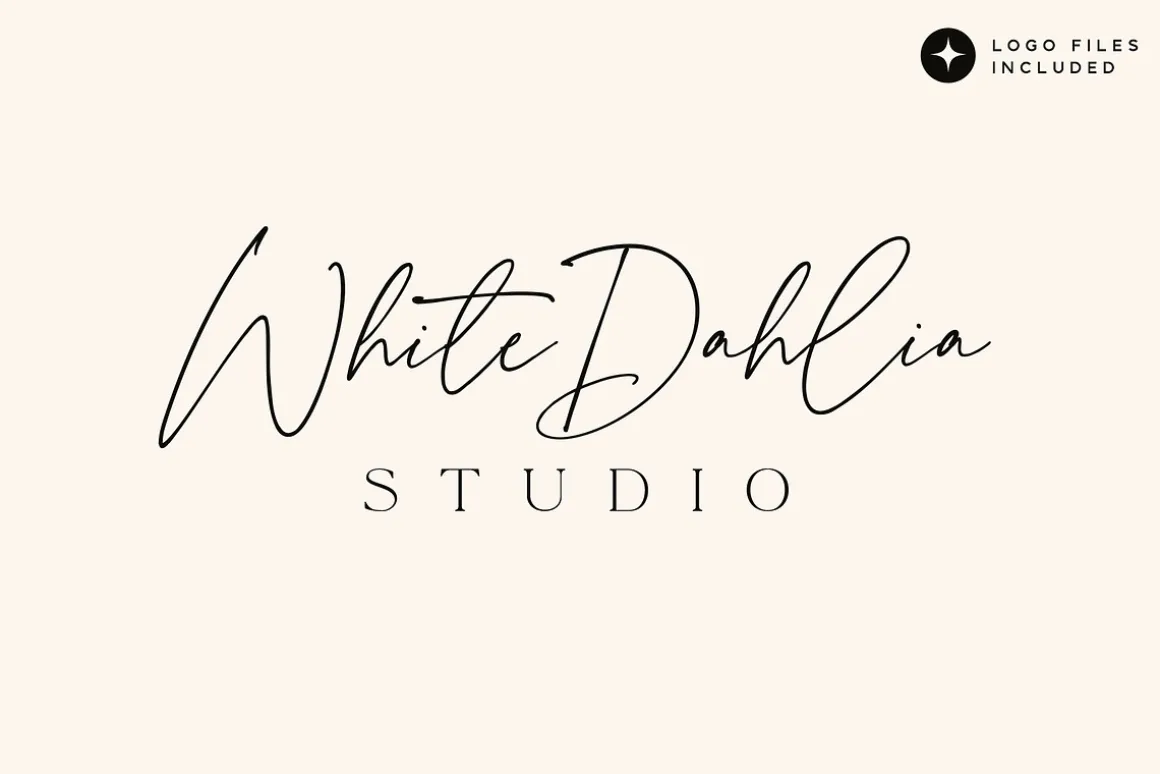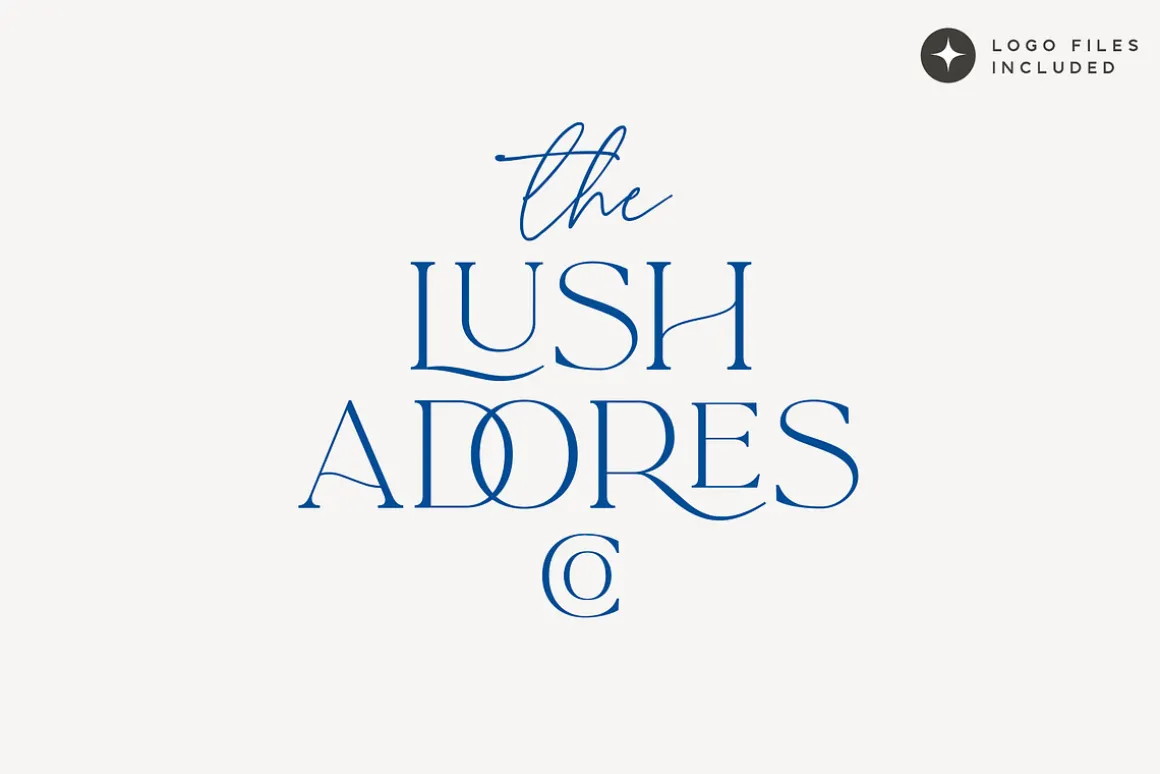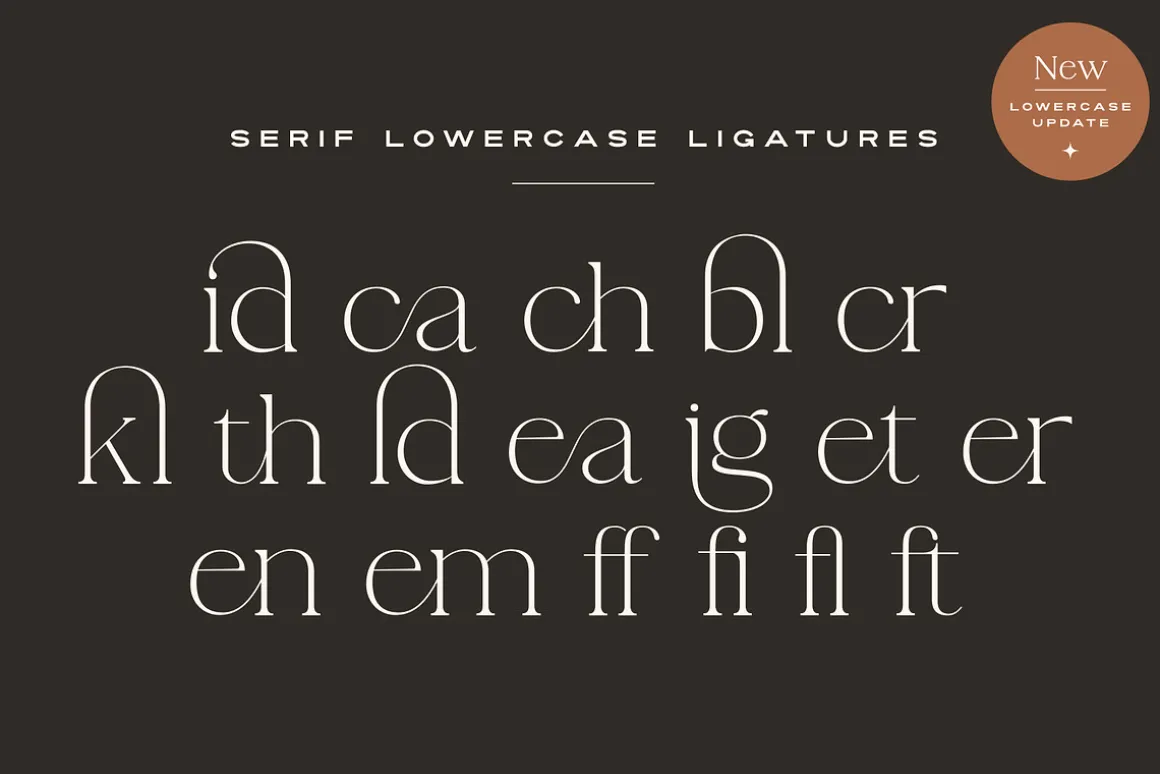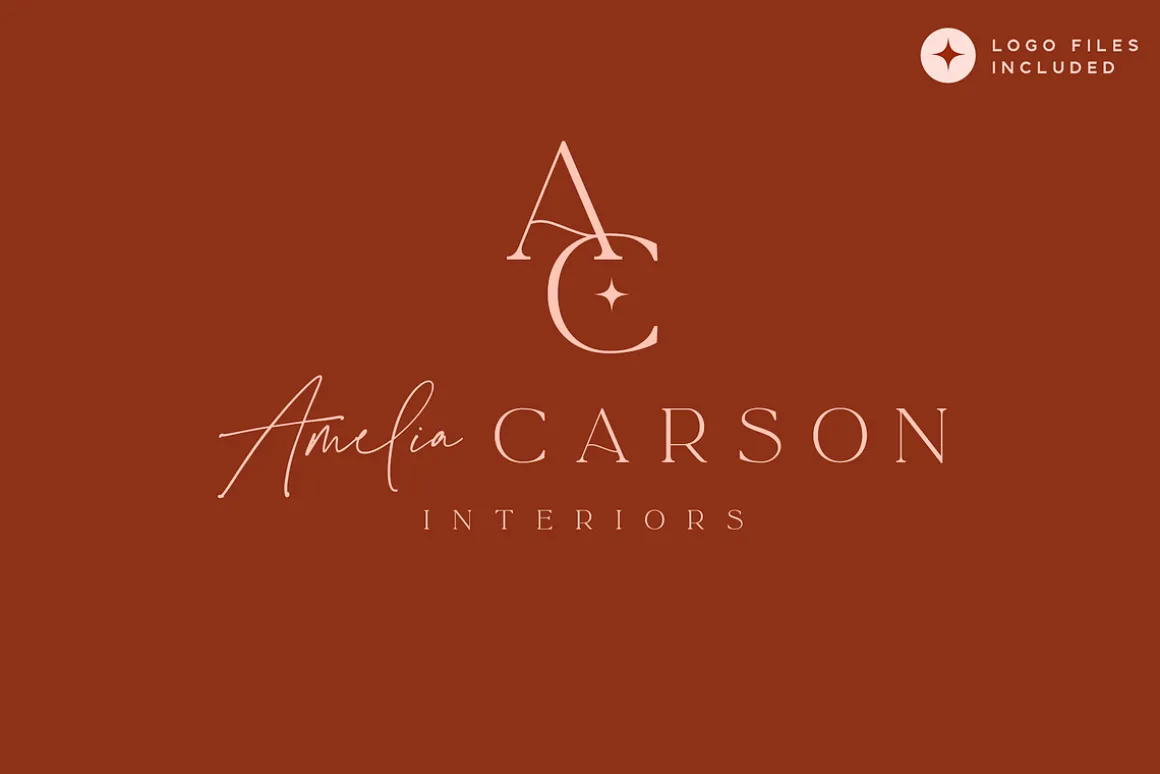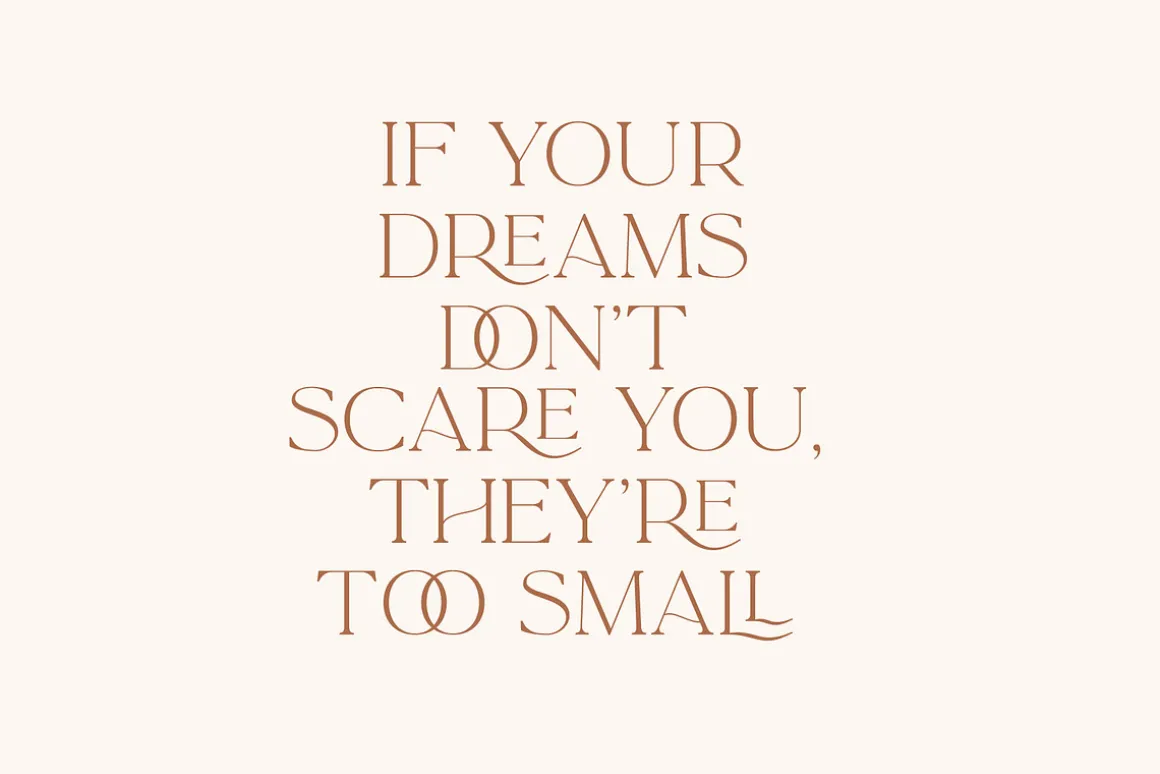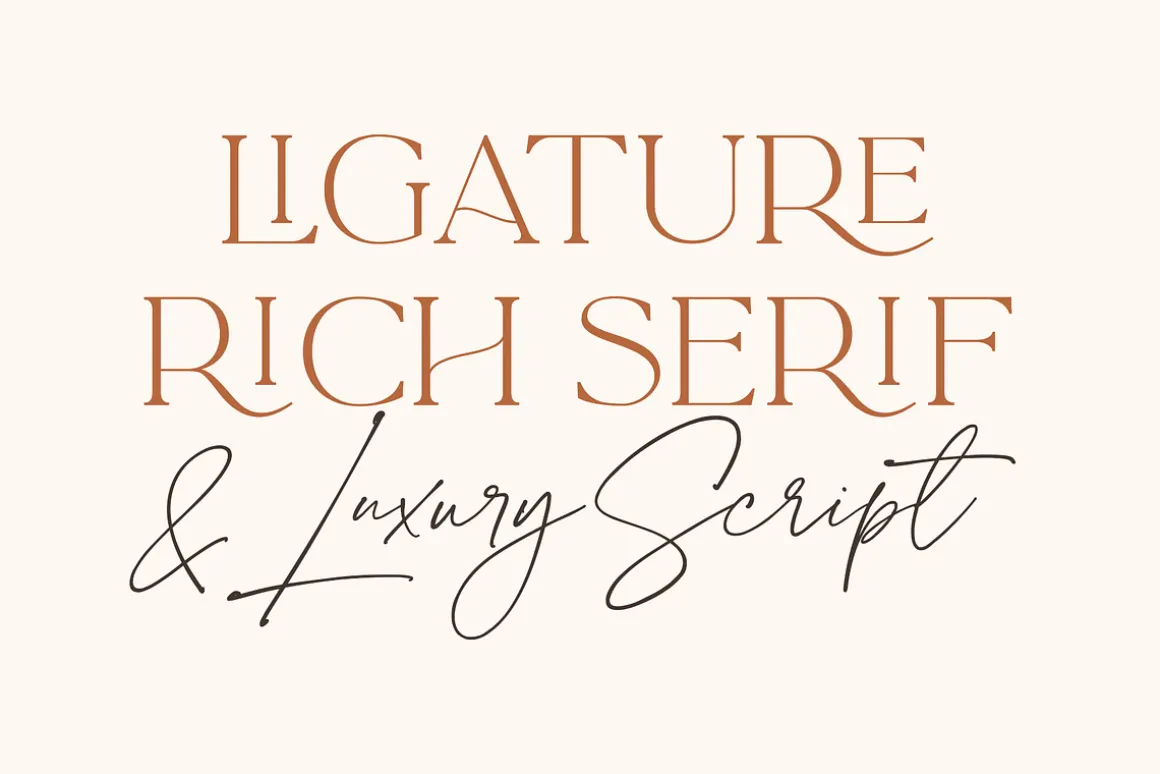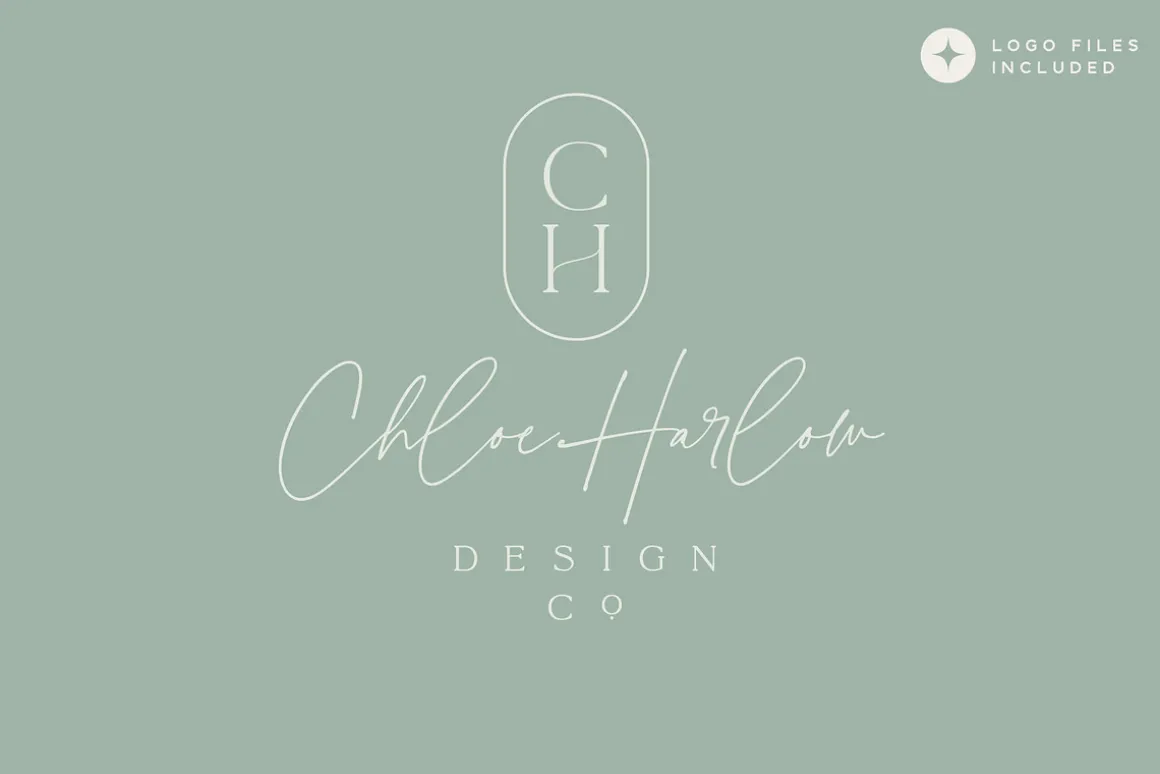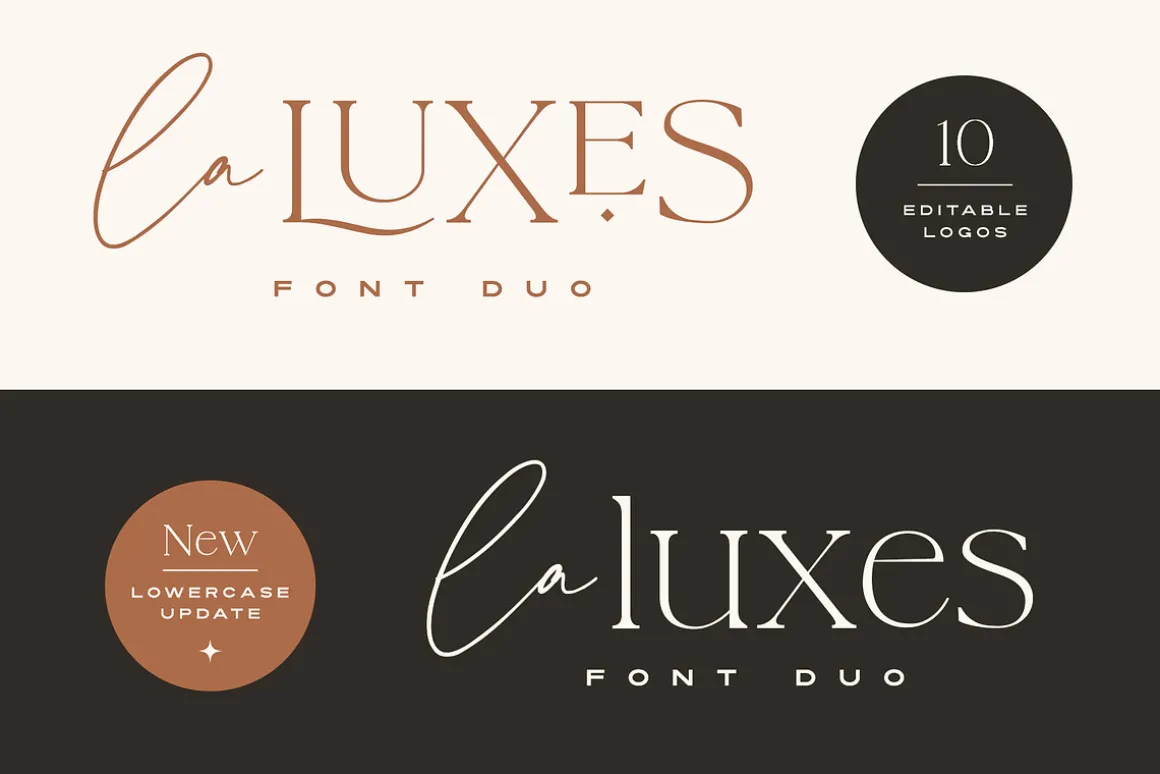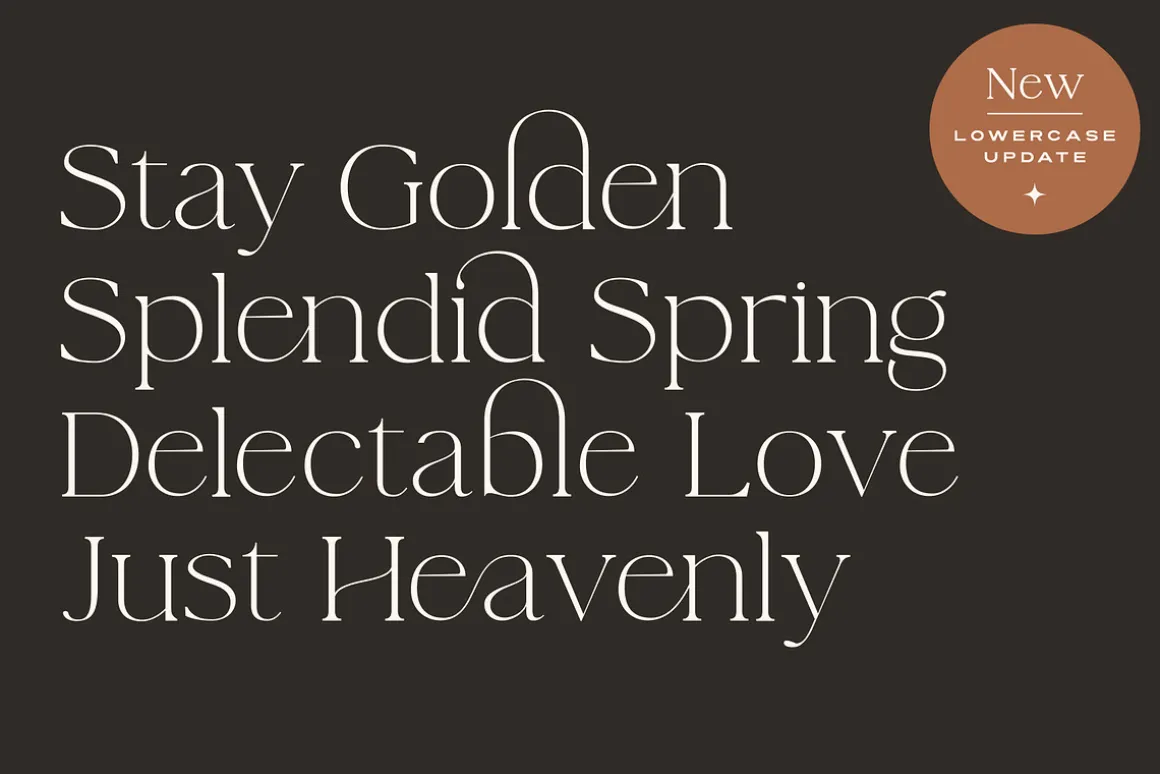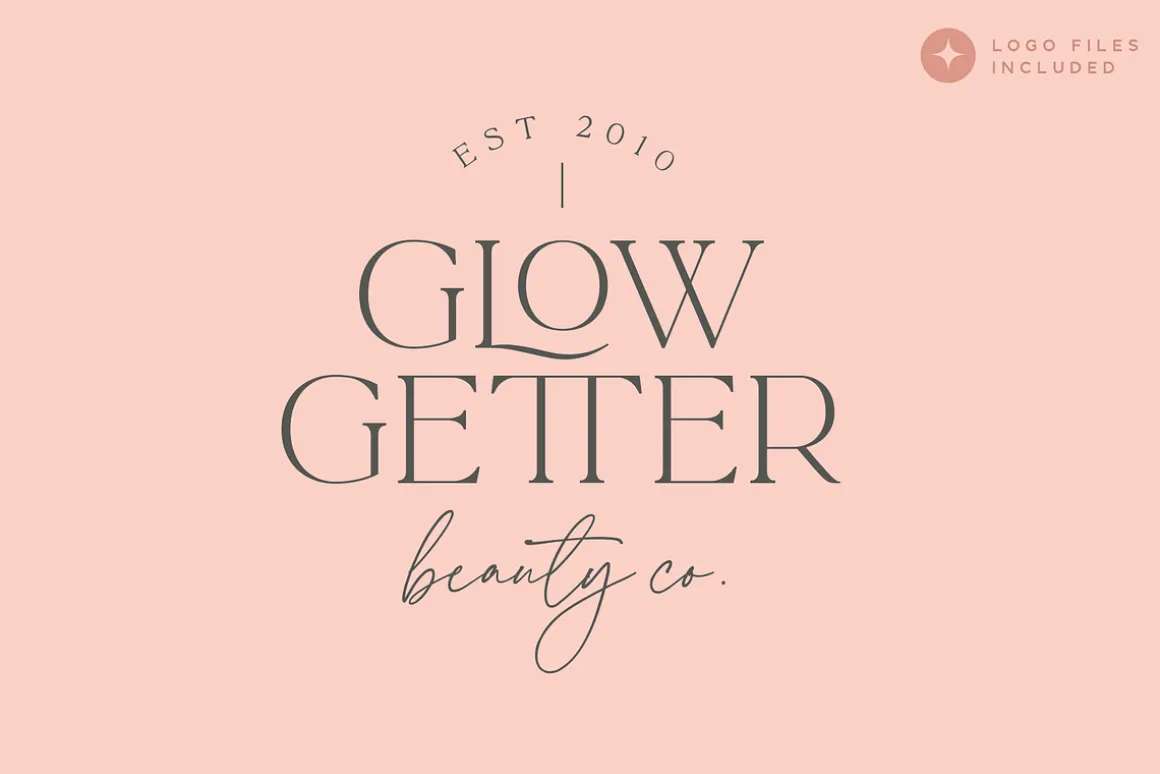
Indulge yourself in a luxurious typography pairing with La Luxes; a classic font duo consisting of an elegant Script & ligature-rich Serif. Also included in this product are 10 bonus logo templates, allowing you to easily edit the designs you see in the images above and create stunning logos in minutes. (Logo templates require Adobe Photoshop or Adobe Illustrator to open).
La Luxes Script • A clean, elegant hand-drawn script font containing upper & lowercase characters, all punctuation and numerals. Also contains 30 ligatures to help the text flow naturally and add a custom-made feel.
La Luxes Serif • A stylish & modern all-caps serif containing uppercase & new lowercase characters, all punctuation & numerals. Also contains 38 ligatures and 11 special characters giving you a variety of layout options.
10 Logo Templates • The 10 logo designs shown in the images above are also included as editable logo files. Simply open any of the templates with Photoshop or Illustrator, edit the text and choose your own colours if you wish. Logos are fully vector and can be scaled to any size without quality loss.
Using Ligatures and Special Characters
The Serif font contains a number of raised ‘small caps’ (A, E, O, U, C) and characters with elongated tails (L, K, R,). These can be accessed by switching on ‘Stylistic Alternates’ in any OpenType capable software and typing these characters. The star icon can be accessed simply by typing the asterisk key (*) with the Serif font.
All Ligatures and Special Characters can also be accessed via a Glyphs panel. This is available on most Adobe software & Affinity Designer. The stylised vertical ‘AND’ and ‘CO’ icons can only be accessed this way.